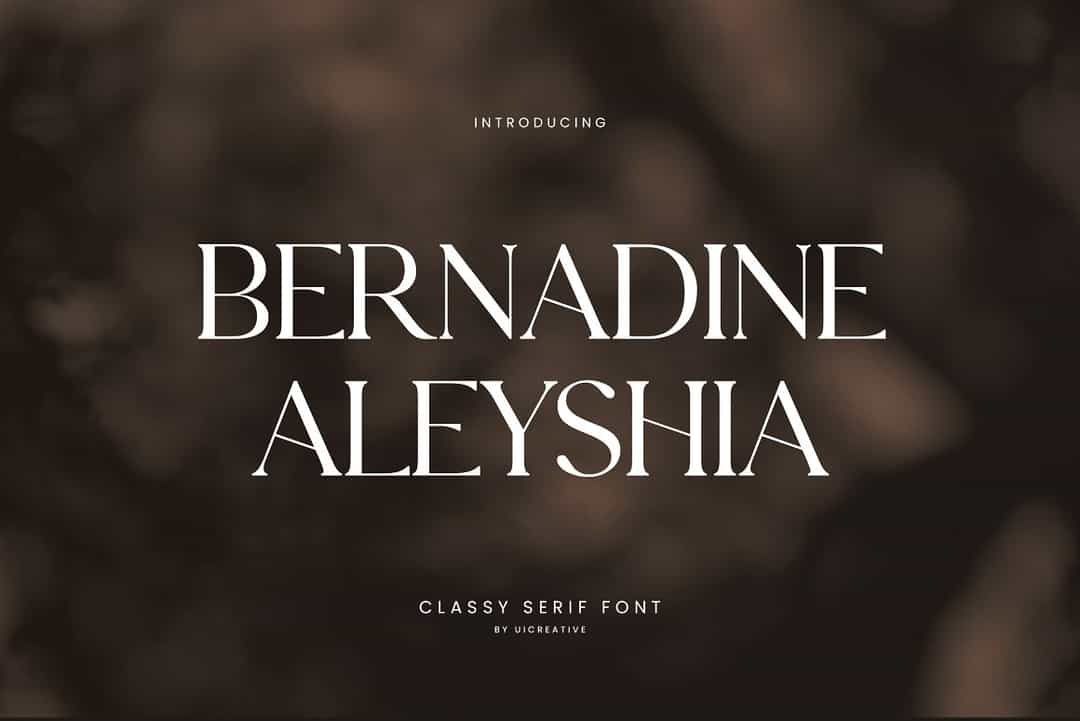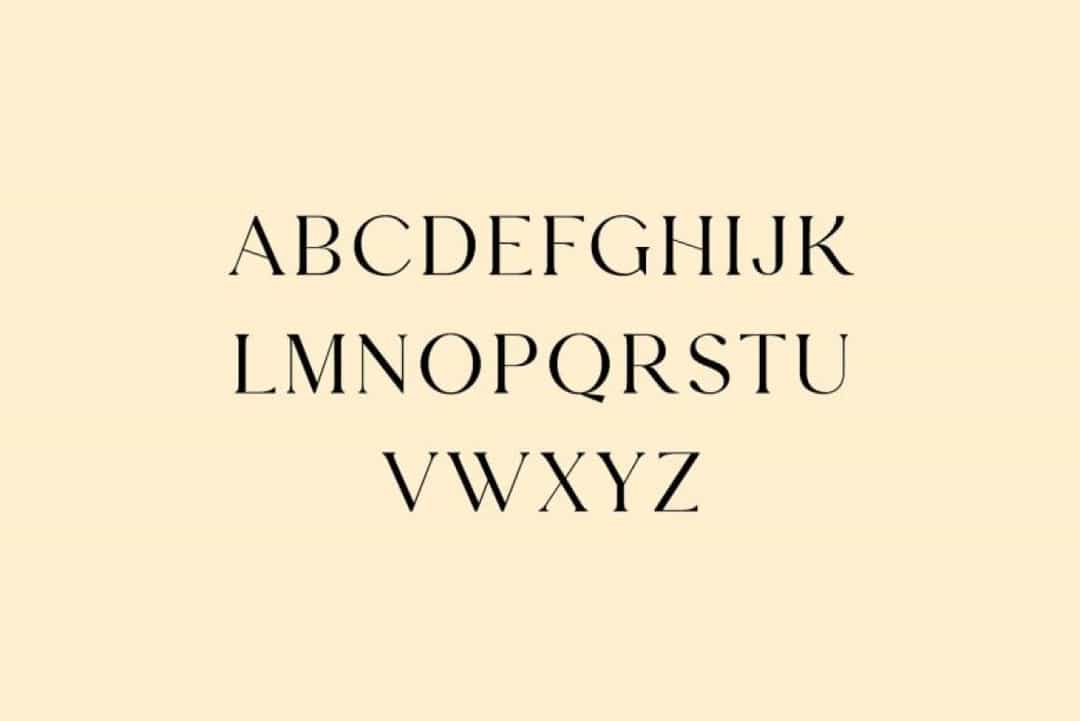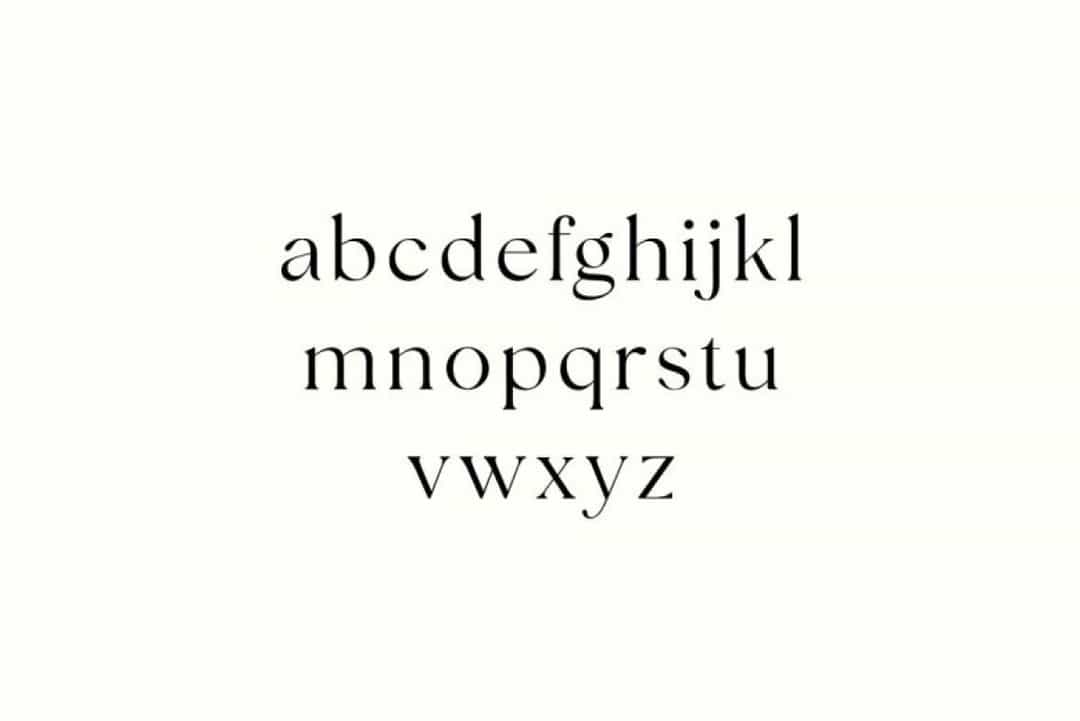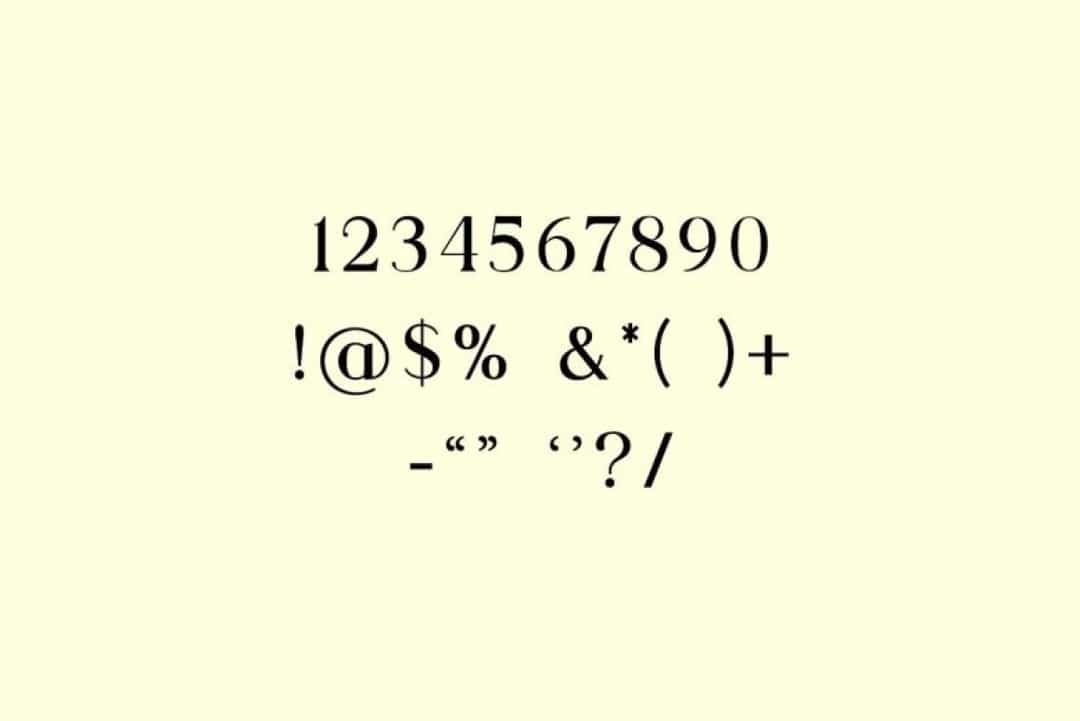
Bernadine Aleyshia is an elegant serif font with modern appeal that’s ideal for multiple uses – logo design, signatures, stationery wedding invites, typography quote magazine, book covers, website headers, clothing package branding designs etc.